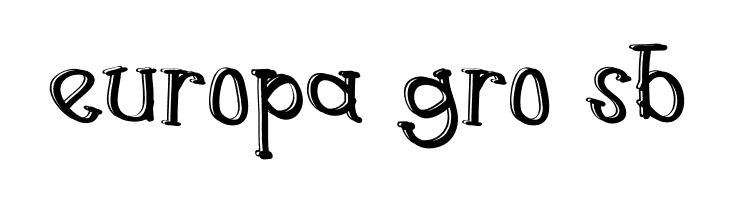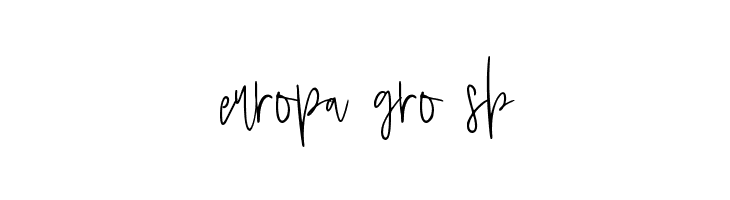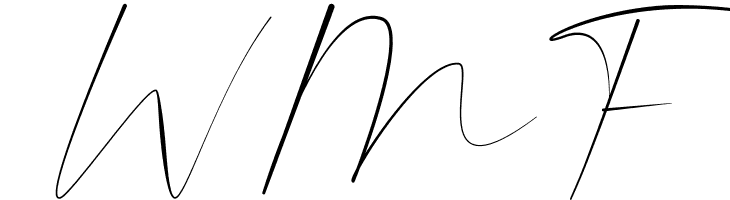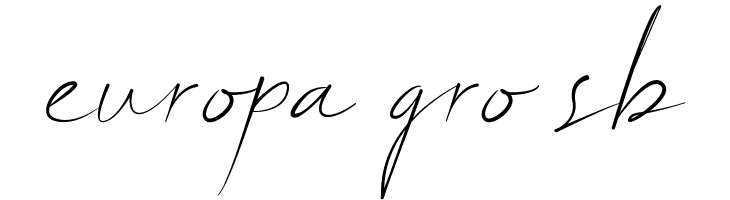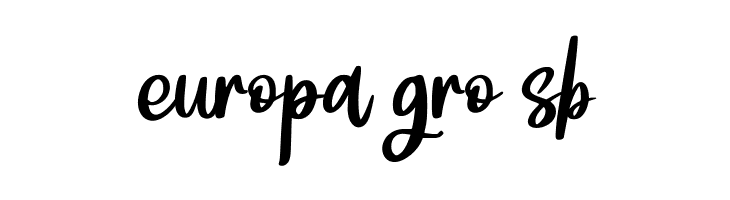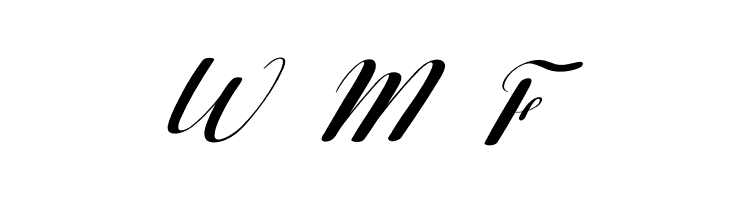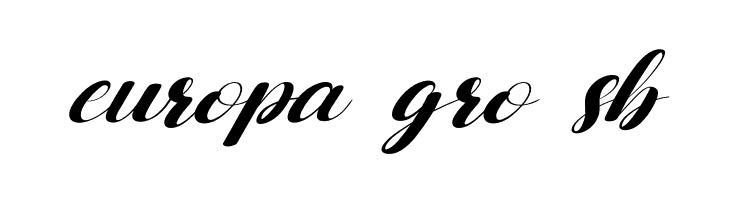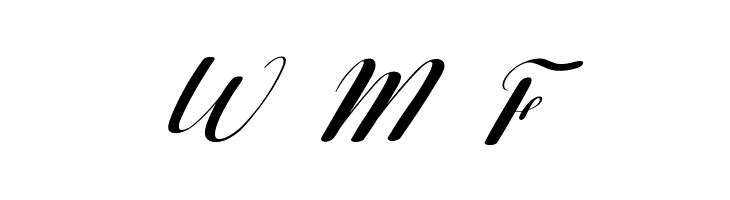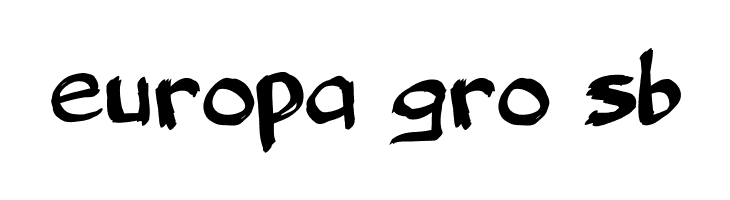
A playful, hand-drawn font with bold, rounded strokes and a whimsical style.
A lively, handwritten font with fluid, flowing letterforms and a playful, casual appearance.
A delicate, flowing script font with elegant, thin lines and whimsical curves.
An elegant script font with flowing, cursive strokes and ornate uppercase letters.
A playful, cursive font with bold, interconnected letters and a whimsical style.
A bold, rounded, and playful font with a handwritten feel.
A bold, brush-style font with dynamic, hand-drawn strokes.
A graceful script font with elegant, flowing strokes.
An elegant, flowing script font with ornate uppercase and smooth lowercase letters.
A sophisticated script font with flowing, high-contrast strokes.